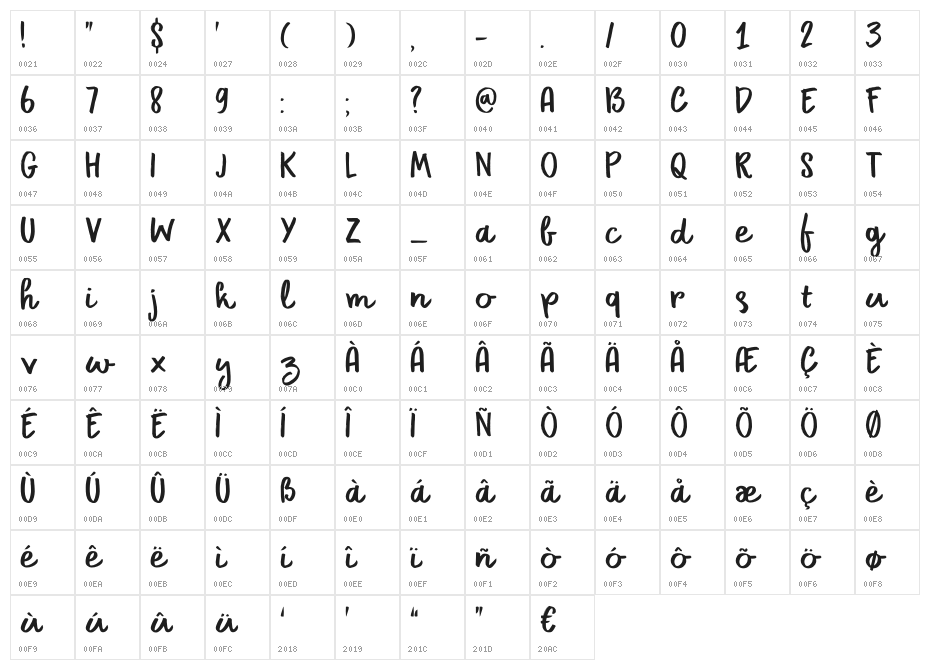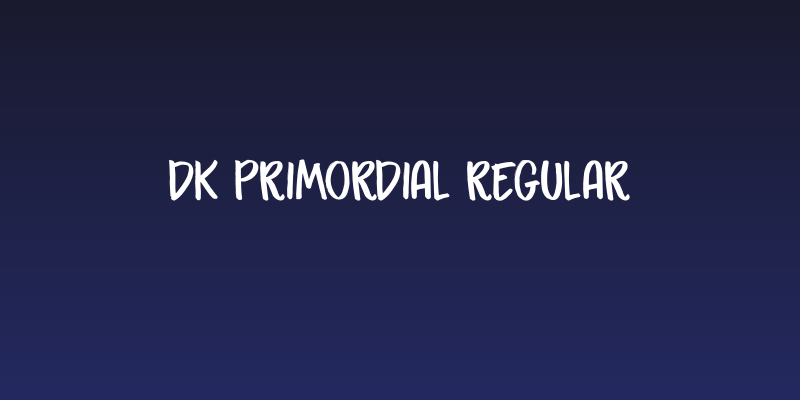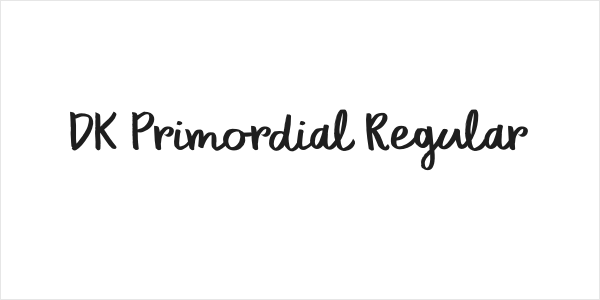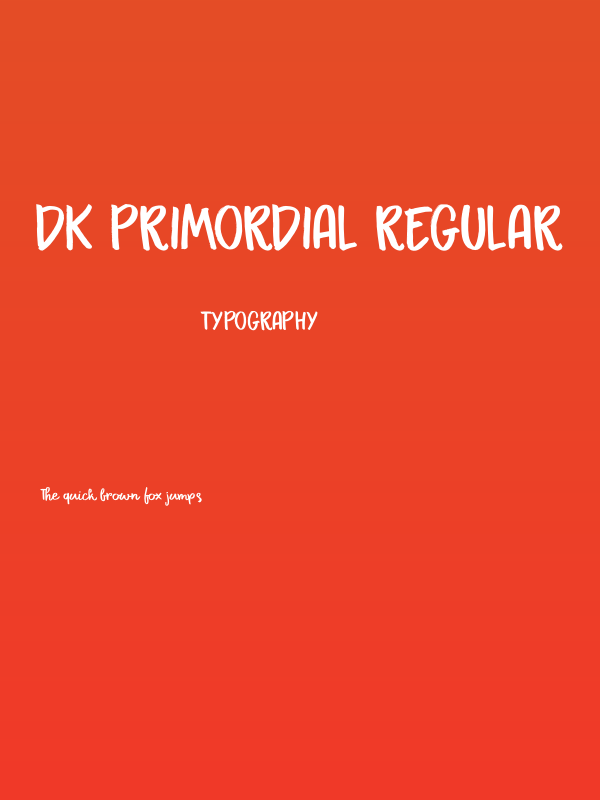
DK Primordial Regular Font
DK Primordial Regular Description
This font features a bold and expressive handwritten style, characterized by its thick strokes and dynamic curves. The uppercase letters are bold and slightly condensed, giving a strong presence, while the lowercase letters exhibit a more fluid and connected script style, adding a touch of elegance. The numbers are consistent with the bold style, maintaining readability. Special characters are creatively designed, incorporating unique elements that enhance the font's decorative appeal. The overall design is playful yet sophisticated, making it suitable for a variety of creative projects.
| Proposed Projects | Ideal for branding, packaging, posters, and invitations where a bold, creative touch is desired. |